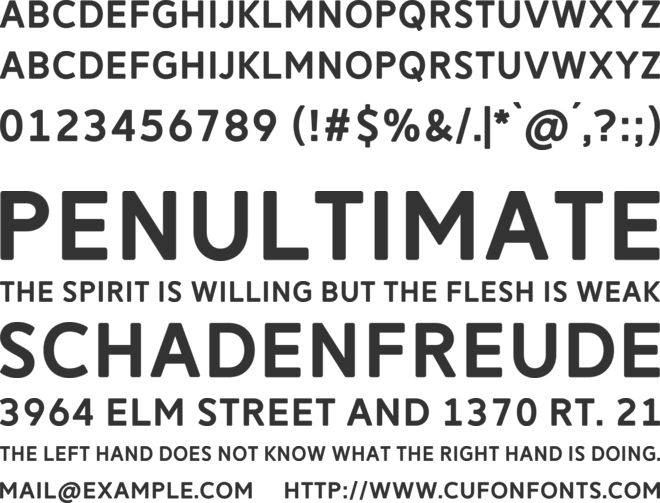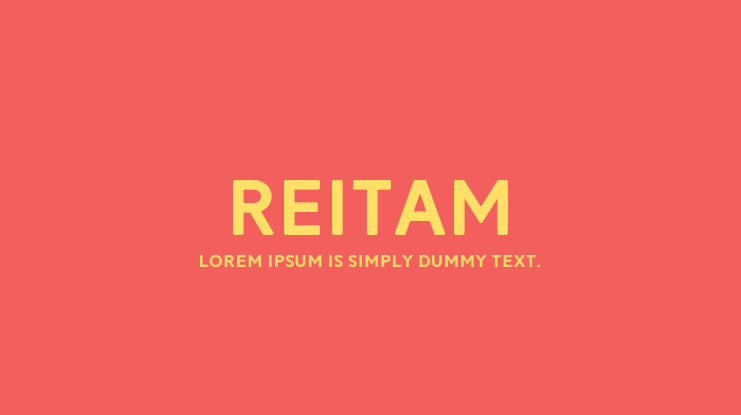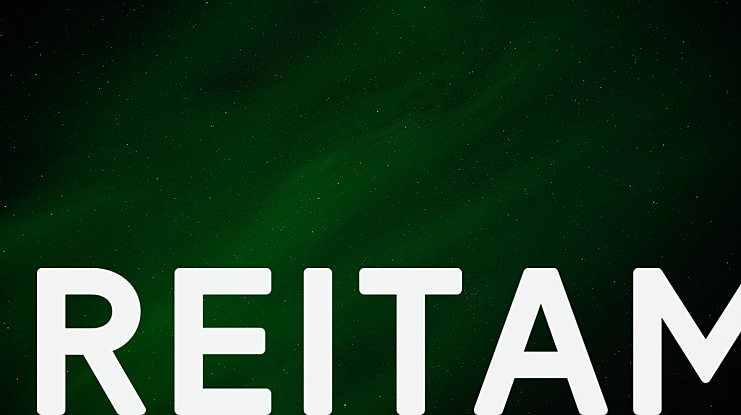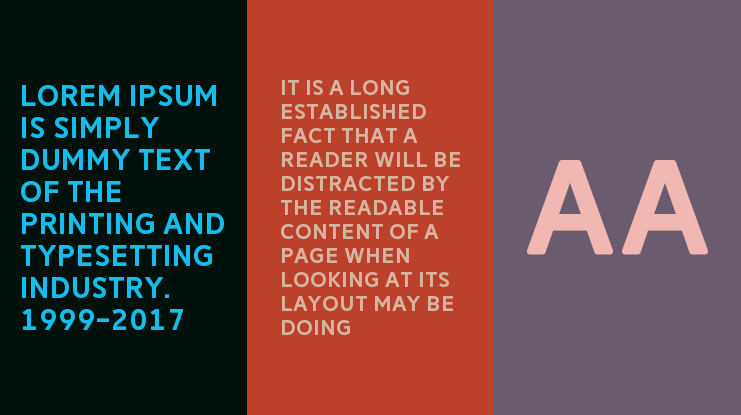
Reitam Font Family
Reitam is a super clean sans serif font.
Reitam features soft, rounded corners which makes it a friendly typeface that is easy on the eyes.
You may try, and tell me if Reitam font is super legible in different formats. It doesnât matter if you want to use it for a large bold headline or small body text, on both web or print, Reitam font is look great in all sizes.